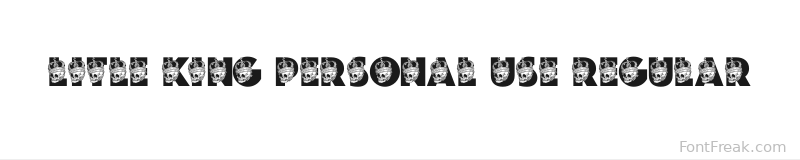
LITLE KING PERSONAL USE Regular
LITLE KING PERSONAL USE Regular is a decorative display font designed by Billy Argel Fonts, perfect for those seeking a unique and eye-catching typeface. This font showcases a playful, whimsical style characterized by its bold strokes and intricate decorative elements, which are reminiscent of classic circus or carnival themes. The stroke weight is consistent throughout, providing a solid visual impact, while the contrast between the letters adds depth and interest. The spacing is carefully balanced, ensuring readability while maintaining a dynamic aesthetic.
This font is ideal for a variety of creative projects. It can elevate wedding invitations with its charming flair, making them memorable and inviting. Additionally, LITLE KING PERSONAL USE Regular works wonderfully for movie posters, providing a fun and engaging title treatment that grabs attention. Small business owners can utilize this font for restaurant menus, offering a distinctive look that aligns with a lively dining experience. It also suits promotional materials for parties or events, adding an element of excitement that draws people in. Graphic designers and content creators will find this font particularly useful for crafting captivating social media graphics or promotional banners.
The target audience for LITLE KING PERSONAL USE Regular includes graphic designers, small business owners, and content creators who are looking to stand out in a crowded marketplace. This font’s unique character and charm make it a valuable addition to any designer's toolkit.
In conclusion, LITLE KING PERSONAL USE Regular font free download offers an exceptional blend of whimsy and boldness, making it a standout choice for anyone aiming to bring a touch of fun to their designs. Its versatility ensures it can be used across various applications while maintaining its striking presence.